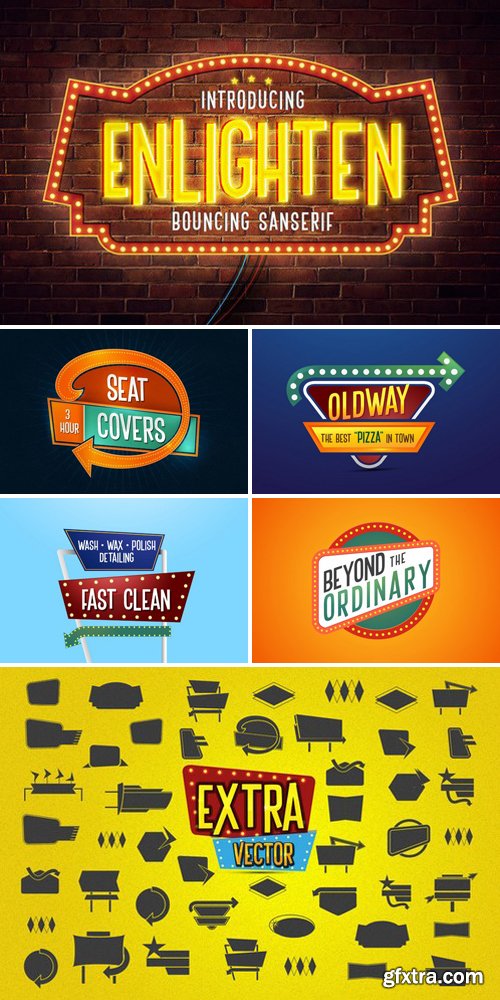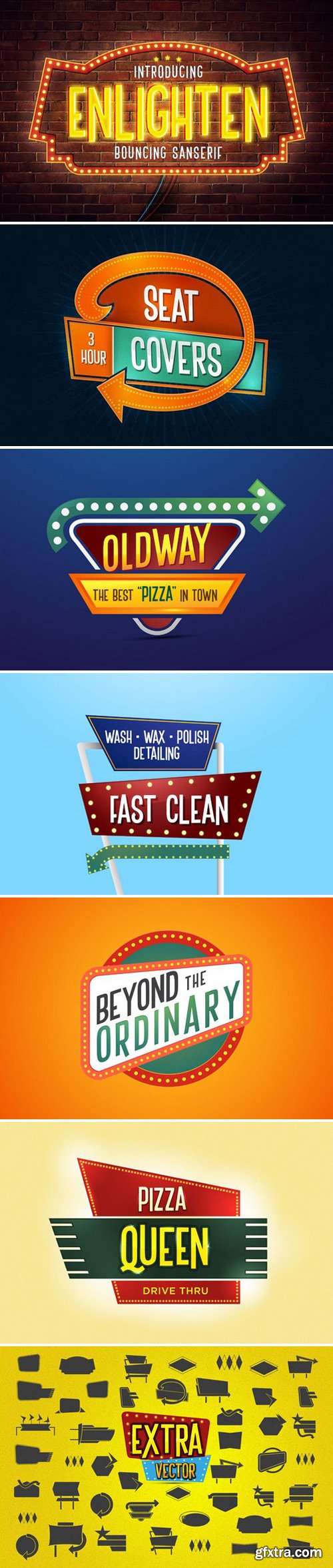
ENLIGHTEN Display Font
The Concept of this fonts is based on the 60's style design. That most of them are using the vintage neon sign on the front of the store. We think that is beautiful idea to bring people to look at them. With bouncy features of this fonts, it's fun to play with them, you can combine the uppercase and lowercase to find the best fit with the word you are typing. just try it below this page.
This fonts are great for fun project, old modern look, with vibrant or solid color schemes. for the applications it will great for Posters, Sign paint, Header or headline, accesories, mobile application, branding, clothing, etc.